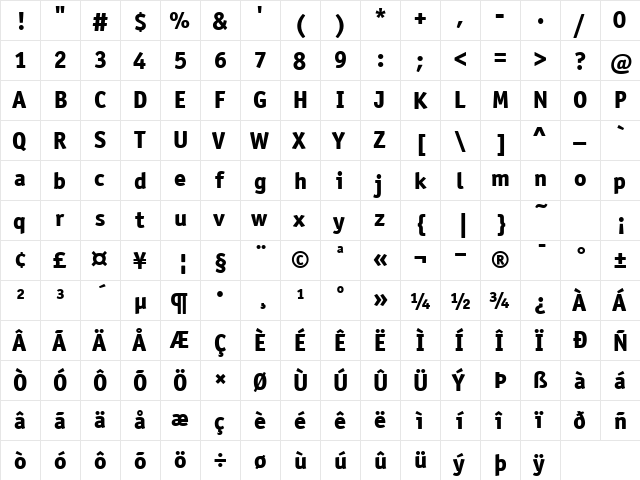
OfficinaSanITCTT ExtraBold
| Foundry | International Typeface Corporation |
| Designer | Erik Spiekermann/Ole Schaefer |
Design Context for OfficinaSanITCTT Typeface
OfficinaSanITCTT takes a measured approach to typography — its balanced proportions and neutral character make it a reliable workhorse for both digital and print work. The heavy weight commands attention and anchors typographic hierarchies.